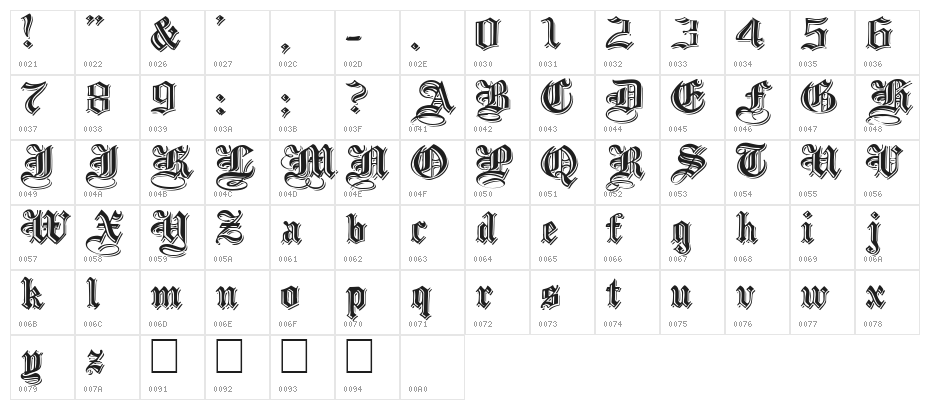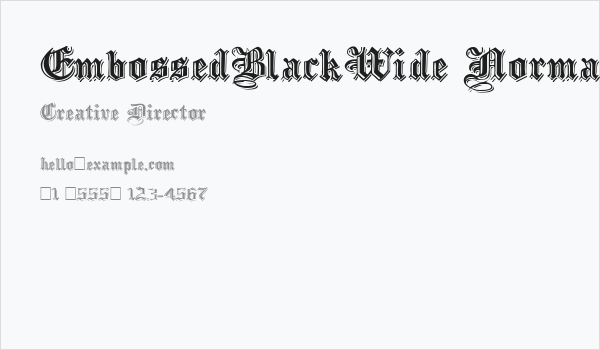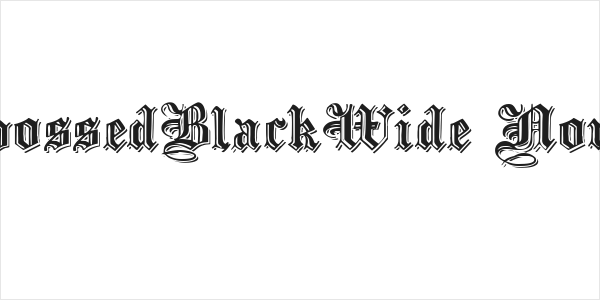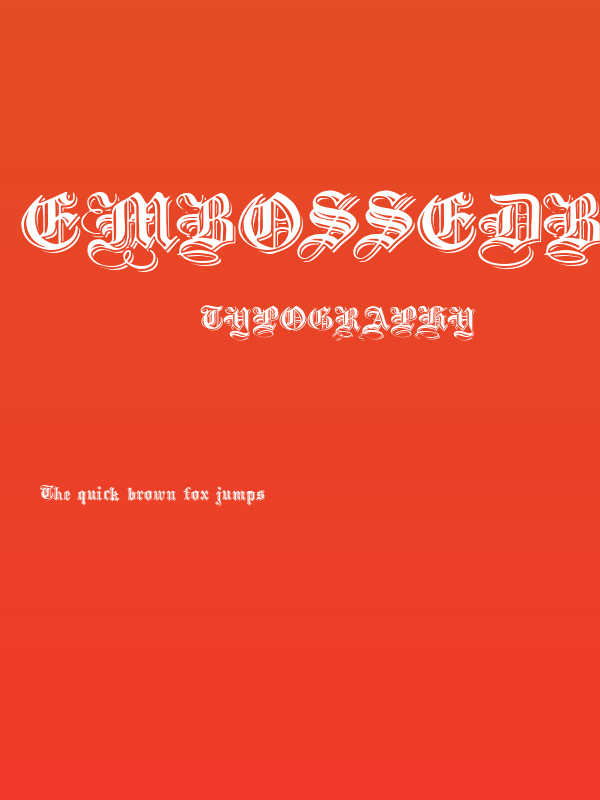
EmbossedBlackWide Normal Font
EmbossedBlackWide Normal Description
This font features a bold and intricate blackletter style, characterized by its ornate and decorative elements. The letters have a strong, embossed appearance with a wide stance, giving them a commanding presence. The uppercase and lowercase letters are consistent in their elaborate design, with sharp angles and flourishes that add to the overall gothic aesthetic. The numbers and special characters maintain the same level of detail, ensuring a cohesive look across all glyphs. This font is ideal for projects that require a dramatic and historical feel, such as medieval-themed designs or vintage branding.
| Use Case | Logos, Headlines, Posters |
| Proposed Projects | Ideal for medieval-themed designs, vintage branding, or dramatic posters. |